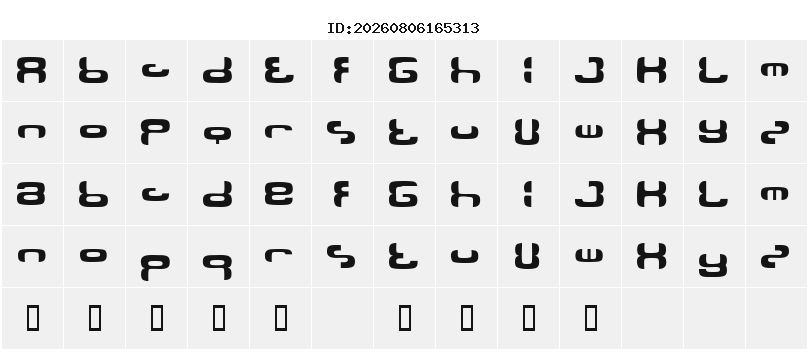
• Font Name: Ollon
• Full Font Name: Ollon
About Ollon.ttf
Ollon.ttf is a modern, elegant sans-serif font designed for ultimate readability and visual harmony. Perfect for branding, headlines, web design, and print materials.